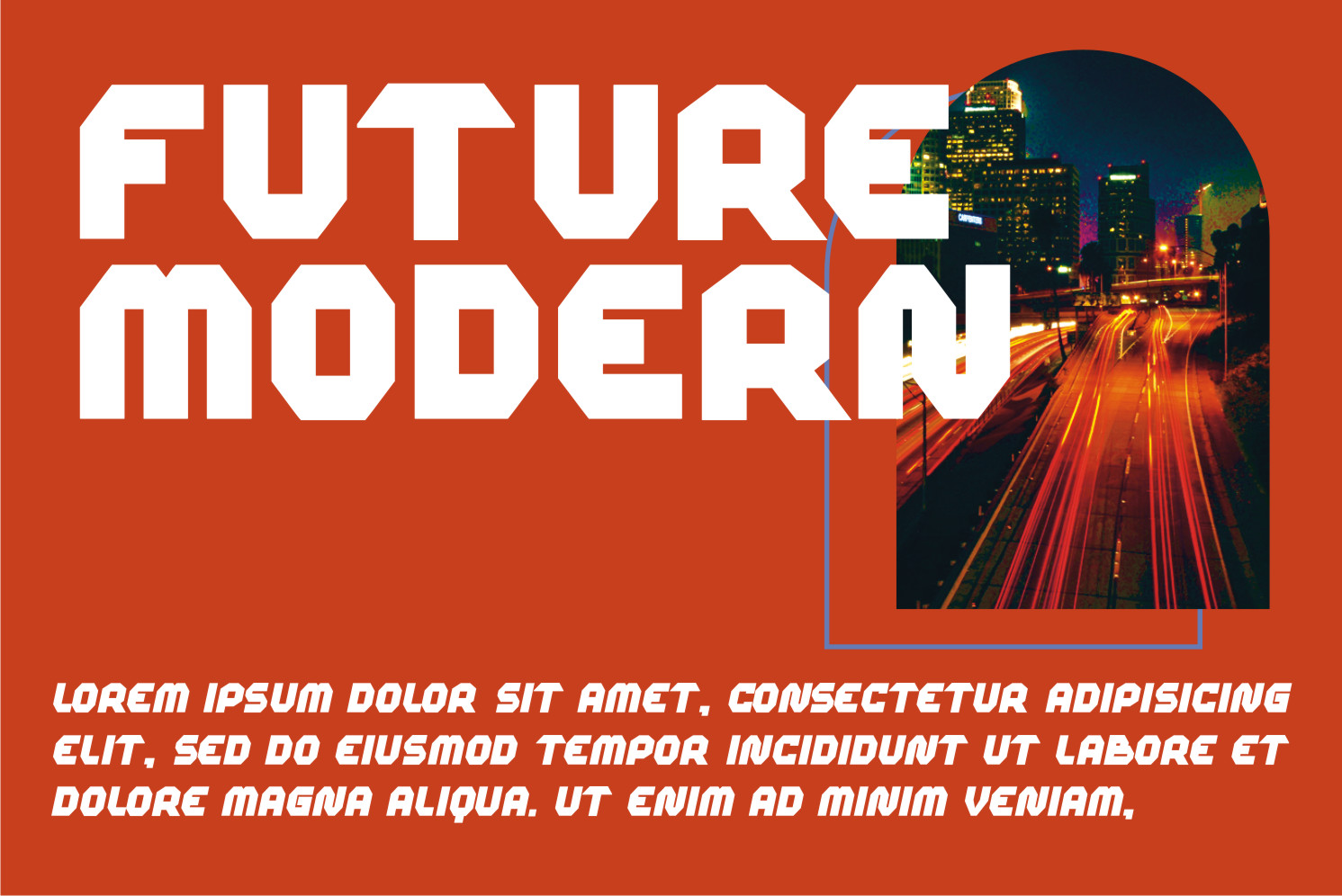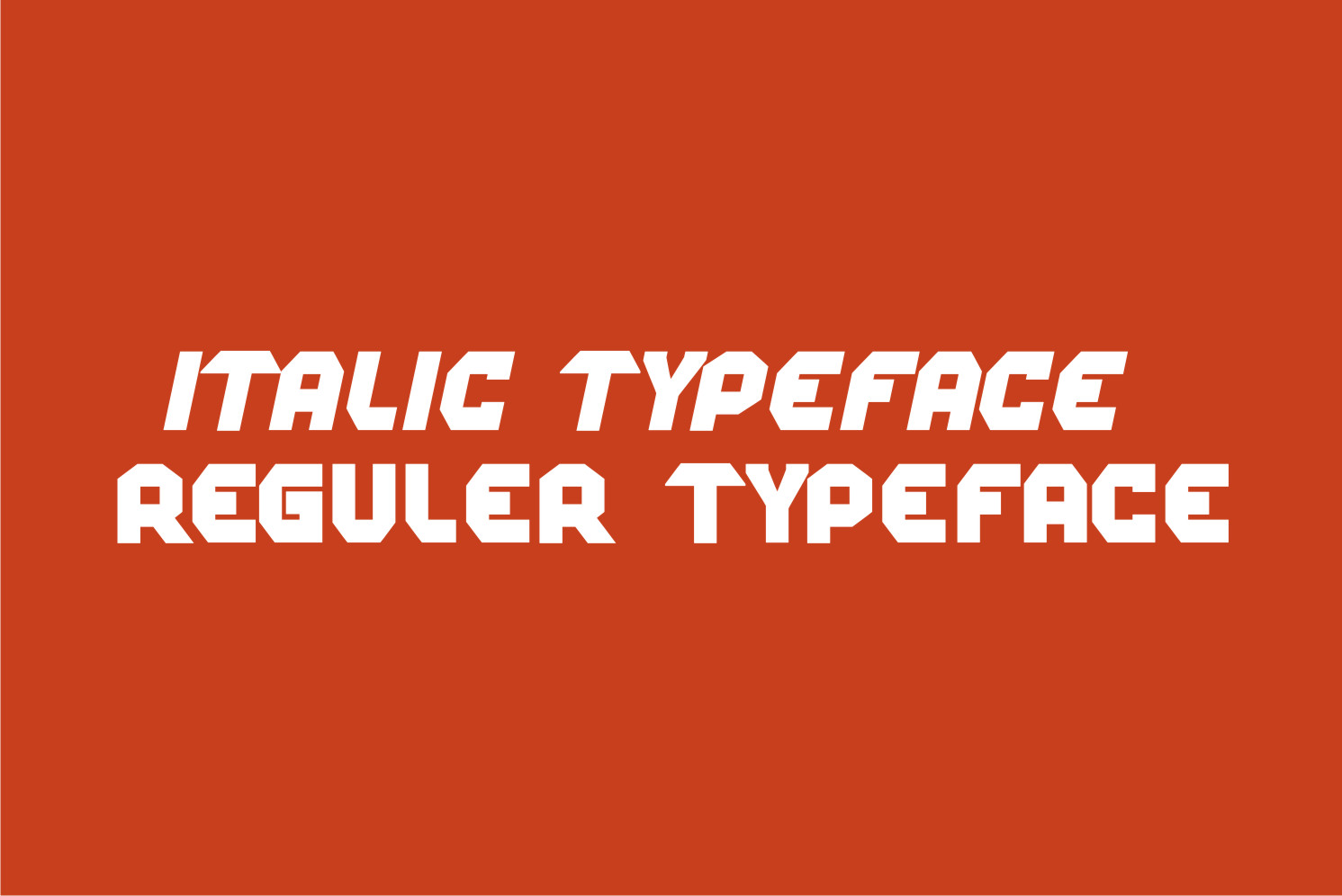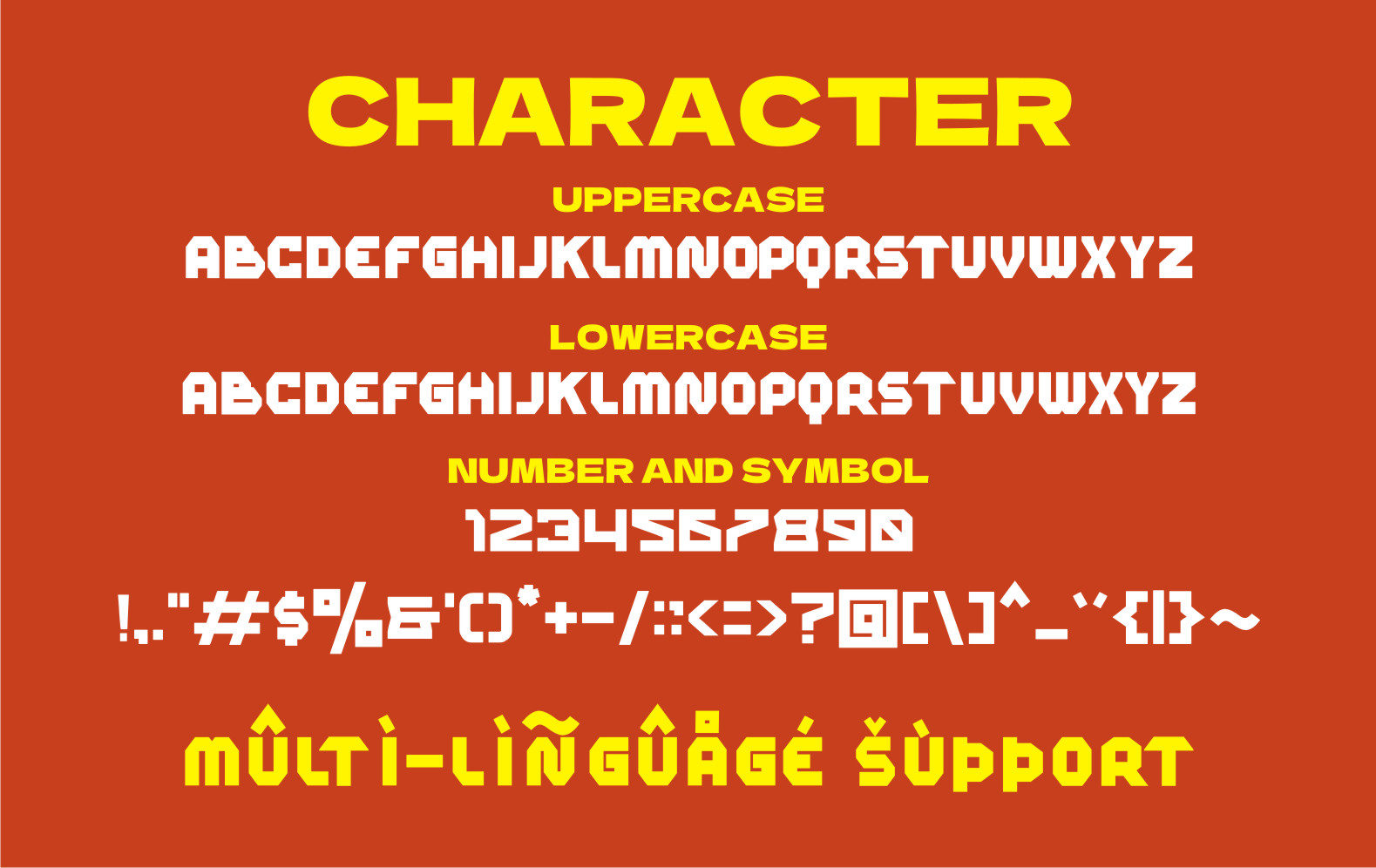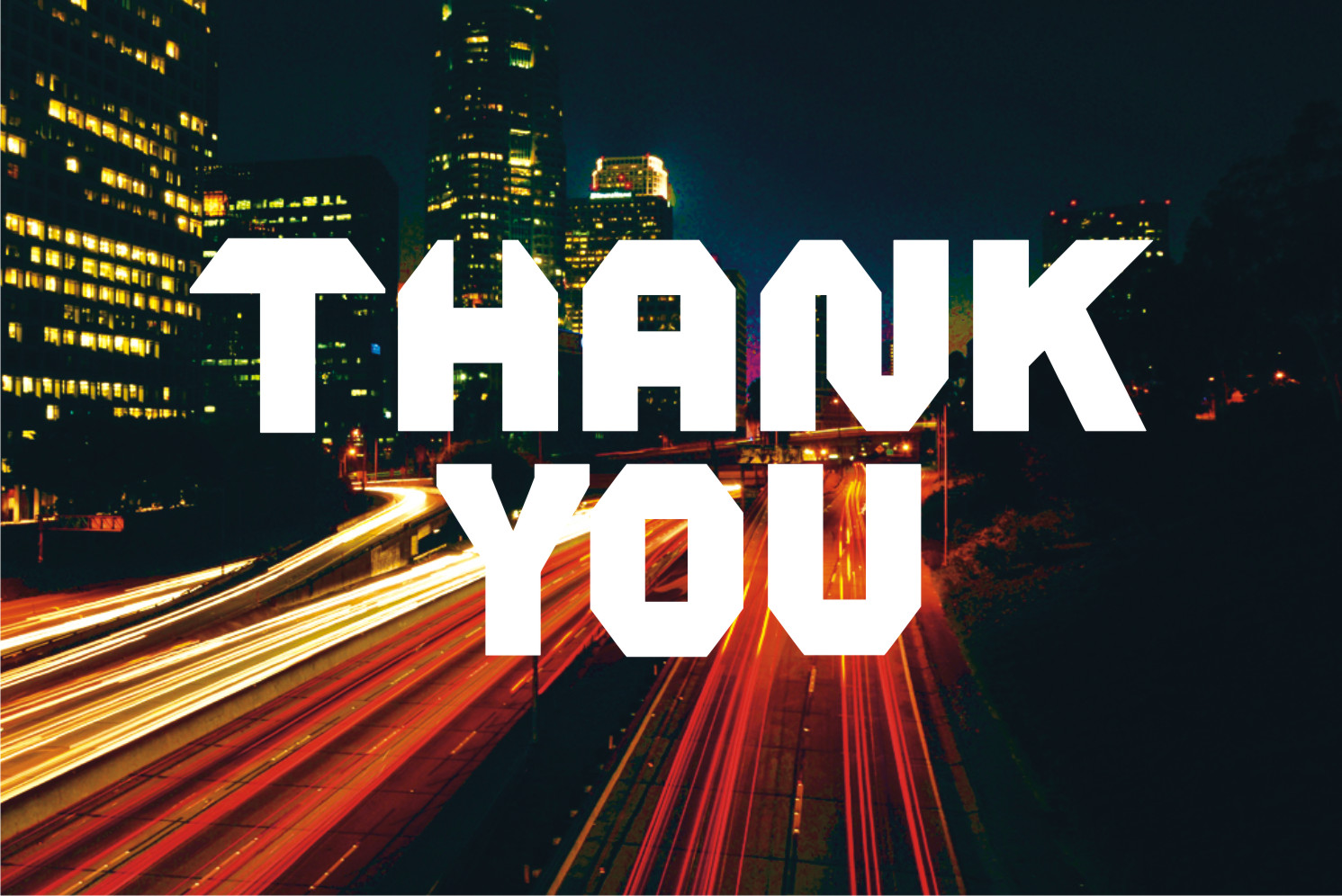
Ourans Display Font
It’s a modern, bold and thick lettered display font. It works on any poster, flyer or print. Use this font for your designs and explore its endless possibilities.